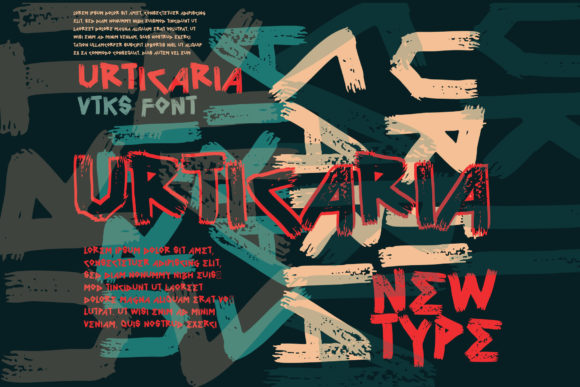
Introducing the Urticaria Font – The Epitome of Modernity and Creative Expression
In a realm of digital artistry, where captivating visual elements reign supreme, the Urticaria Font emerges as a radiant beacon of innovation and style. This exquisite display font, meticulously crafted by the renowned VTKS Design, is an enchanting symphony of brushed strokes and refined lines, designed to elevate your creative projects to breathtaking new heights.
With Urticaria, you'll embark on a typographic journey like no other. Its meticulously crafted characters exude a captivating charm, effortlessly blending boldness and elegance. Whether you're a seasoned design professional seeking to elevate your work or a passionate hobbyist eager to unleash your creativity, Urticaria is your perfect companion.
From the delicate curves of its lowercase letters to the assertive strokes of its uppercase characters, Urticaria possesses an undeniable allure that captivates and enthralls. Each glyph has been lovingly designed to ensure perfect harmony and visual impact. Whether you're crafting stunning logos, designing eye-catching posters, or creating heartfelt greeting cards, Urticaria effortlessly transforms your words into works of art.
Immerse yourself in the limitless possibilities that Urticaria unlocks. Its versatility extends far beyond the confines of traditional design applications. Unleash your imagination and explore the endless creative avenues that await, from crafting enchanting digital designs to creating stunning presentations that leave a lasting impression. With Urticaria, the boundaries of creativity dissolve, allowing your artistic vision to soar.
Experience the Urticaria Font today and unlock a world of creative possibilities. Let its unique charm captivate your audience and leave an enduring mark on their minds. Embrace the allure of modern typography and elevate your designs to new levels of brilliance.